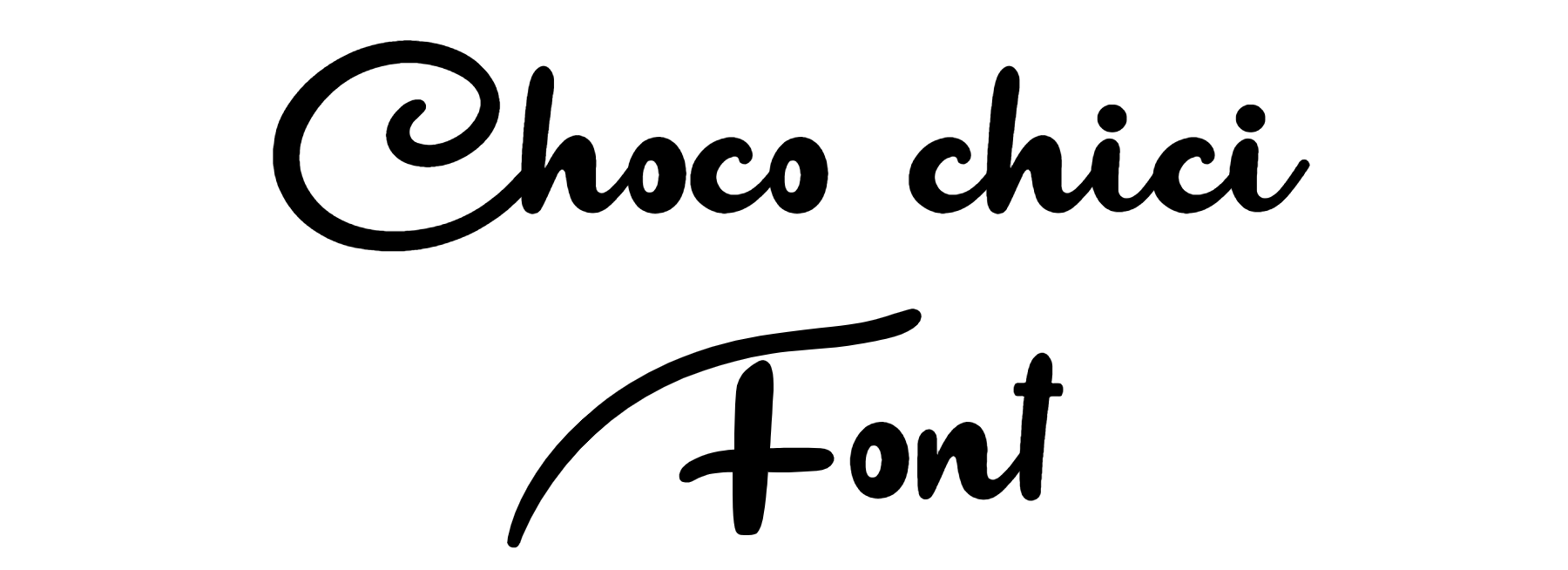
Choco chici
Choco chici is a cartoon font (2021). Its bouncy, rounded letters feel playful, like lettering from a cartoon or a comic book. It's a free download, and you can try it with your own text in the preview above first.
Choco chici covers the full alphabet in upper and lowercase, plus all ten numbers, so you can set names, dates and prices without switching fonts. Common punctuation such as &, !, ? and @ is included as well. It also has the accented letters you need for Spanish, French, German, Portuguese and Italian.
Designers usually reach for fonts like Choco chici when they're making kids' books, birthday invites and fun YouTube thumbnails. Its lowercase letters are small compared to the capitals, so set it a size or two bigger than usual. The file has no kerning data, so in logos and big titles check pairs like AV, To and Wa and tighten the spacing by hand. Cartoon fonts are great for short, fun lines. If you place it over a busy photo, add a thick outline or a drop shadow so it stays readable.
Yes. Choco chici includes the accented letters needed for Spanish, French, German, Portuguese and Italian, so it works for more than just English.